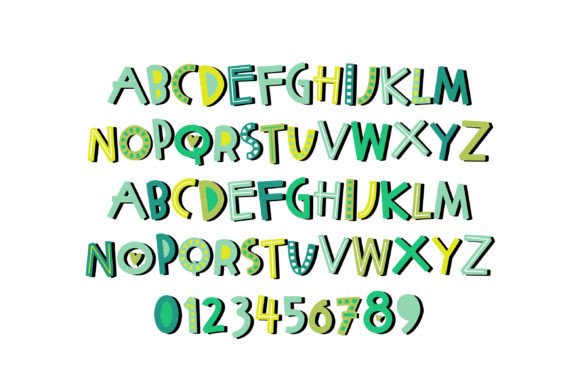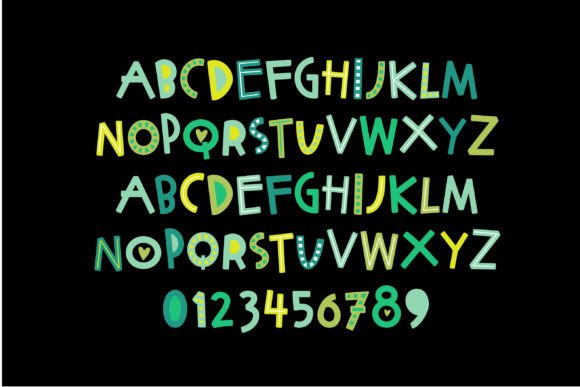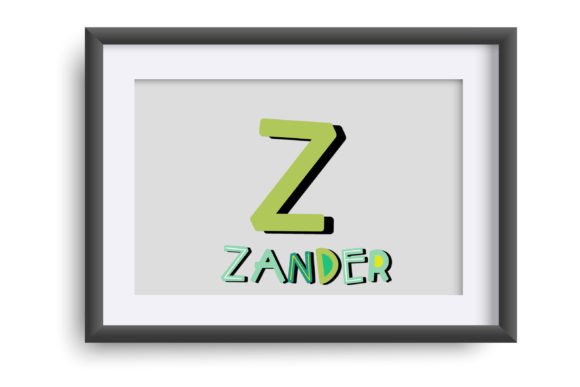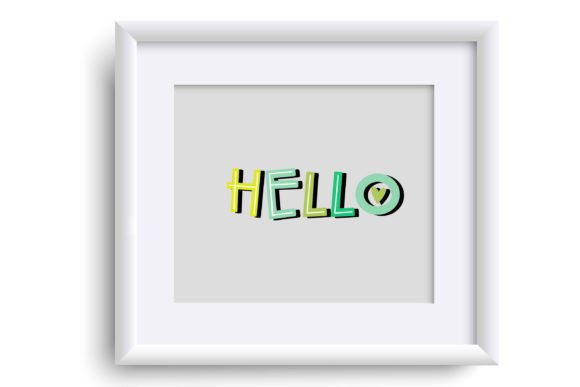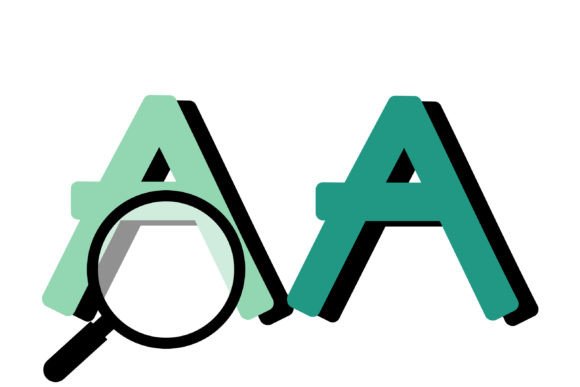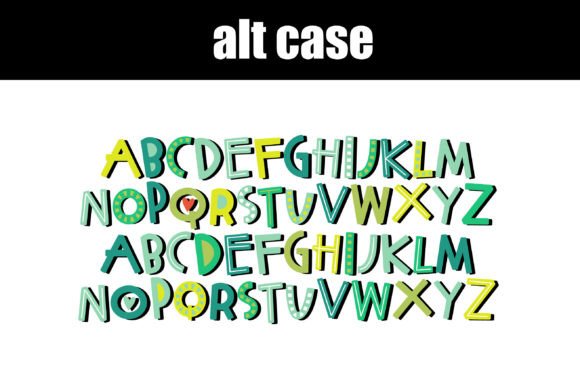
Introduction to Make It Green Font
Make It Green is a modern and unique font that perfectly captures the spirit of St.
Patrickโ€™s Day Its playful shapes and quirky details make it stand out from the crowd, adding a fun and festive touch to any project.
Key Features of Make It Green Font
Why Choose Make It Green Font?
Make It Green Font offers exceptional quality and versatility, making it a valuable addition to your design toolkit. Whether you’re creating for personal projects or commercial use, Make It Green Font delivers professional results.